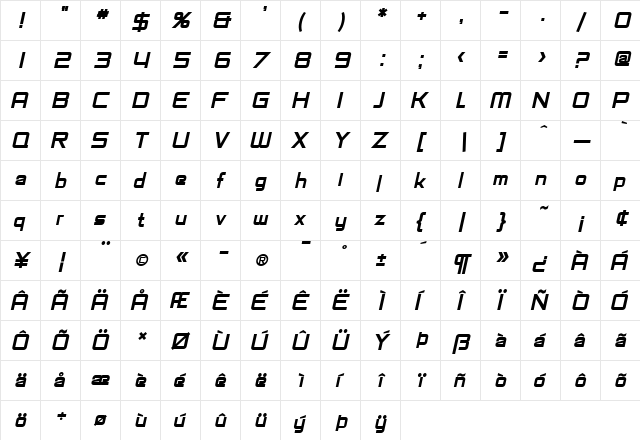
SF Chaerilidae Bold Oblique
Design Context for SF Chaerilidae Typeface
SF Chaerilidae offers clean, dependable letterforms without strong stylistic allegiance, making it a practical choice for designers who need flexibility. The dynamic lean of this cut emphasises speed and emphasis in any layout. The heavy weight commands attention and anchors typographic hierarchies.
Pro Tip: Use SF Chaerilidae for emphasis, pull quotes, and subheadings where its slanted energy can add rhythm to the layout.